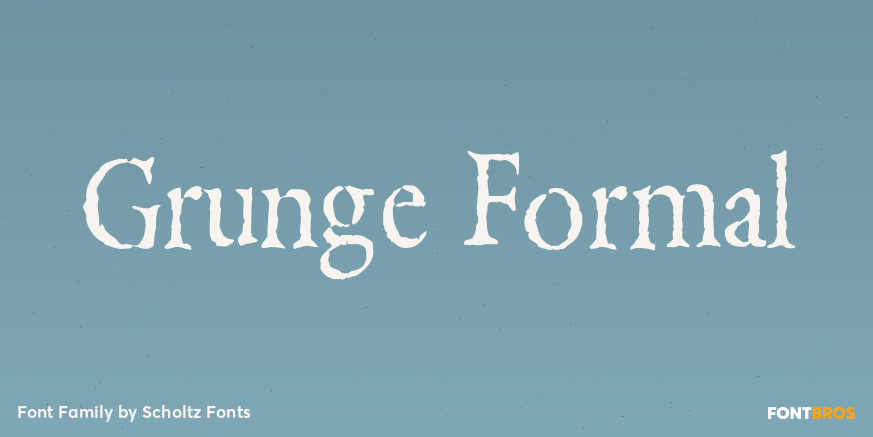
About Grunge Formal
Grunge Formal started out as a more upright, formal version of one of my fonts, Figment. A most versatile contemporary typeface, Grunge Formal works equally well from funky to formal, from giant size headers to pint size body text, from movie posters…